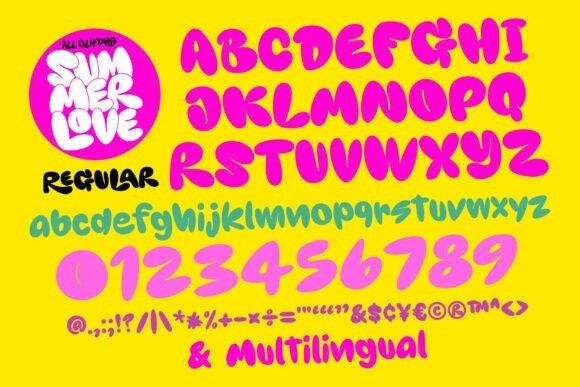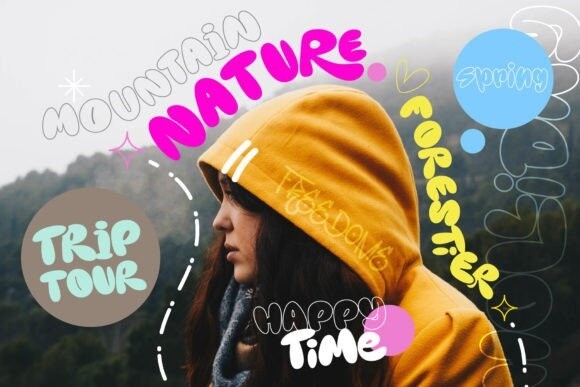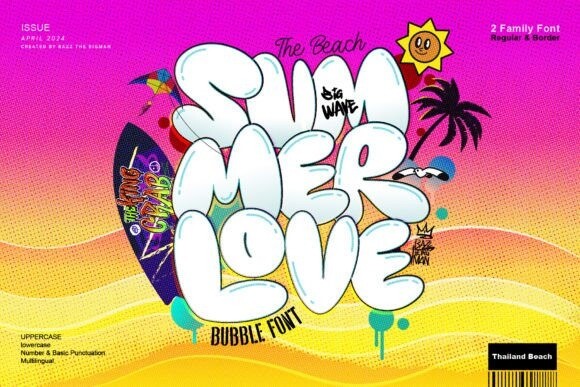
Summer Love Font
Designer: BB Type Studios
Summer Love Font is a cool-looking and bubbly display font. It embodies playfulness and authenticity and is the perfect choice for a summer project or street art fashion, T-Shirts, Sportswear, logos, and more!